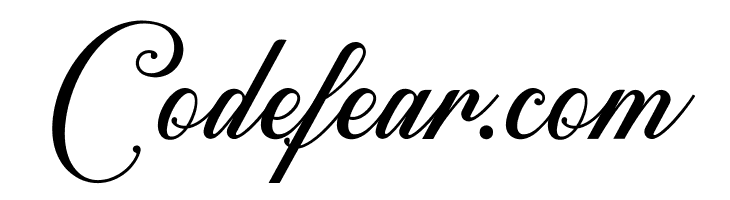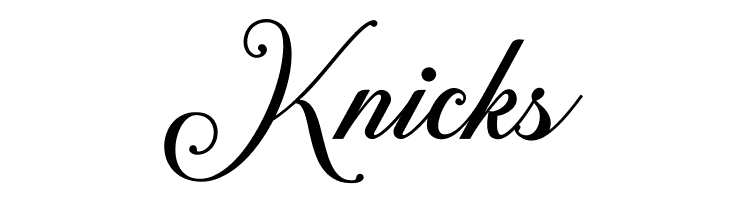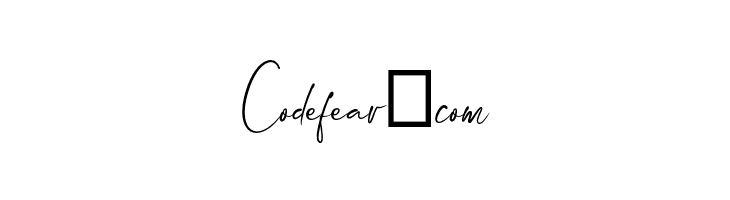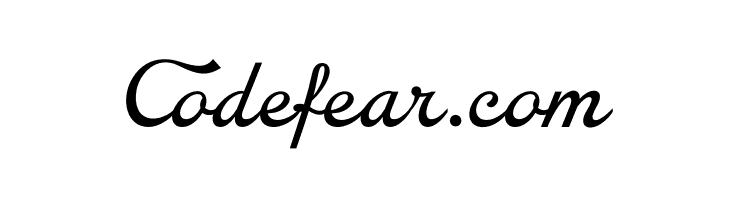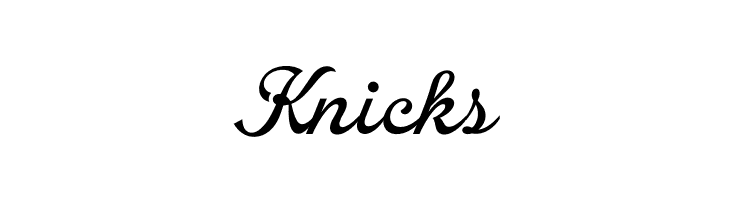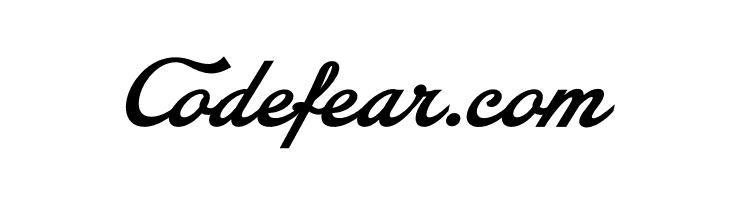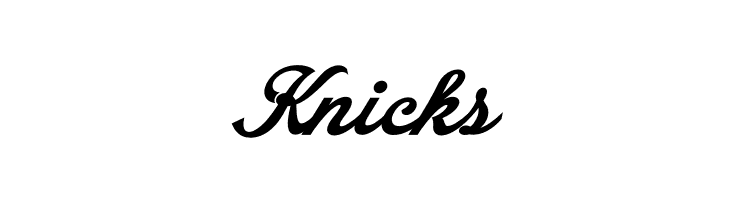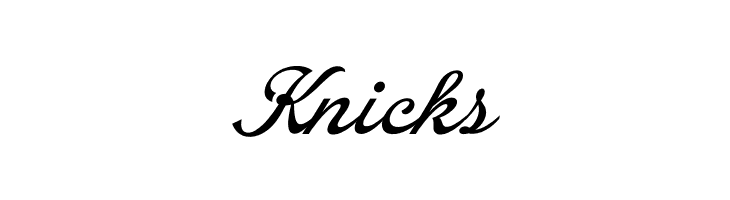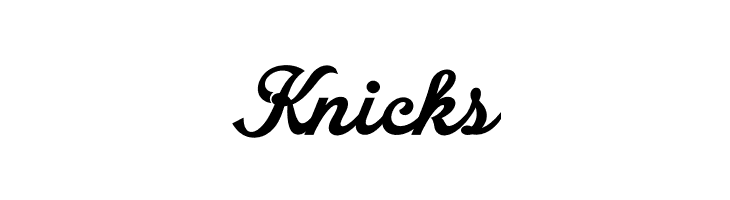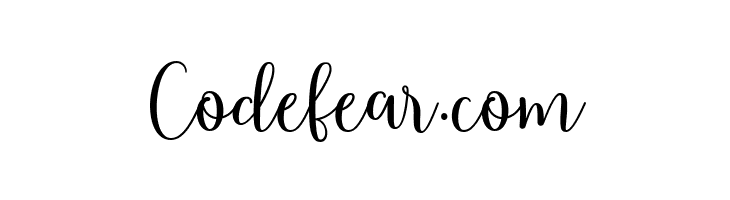
A graceful and sophisticated script font with flowing, interconnected letters.
A bold, elegant script font with flowing, interconnected letters.
A bold, italic script font with elegant, flowing cursive letters.
A sophisticated, flowing script font with an elegant italic style.
An elegant, flowing script font with a handwritten style.
An elegant script font with flowing, cursive strokes and decorative swashes.
A bold, dynamic script font with high contrast and decorative flourishes.
A modern, elegant script font with flowing curves and a handwritten feel.